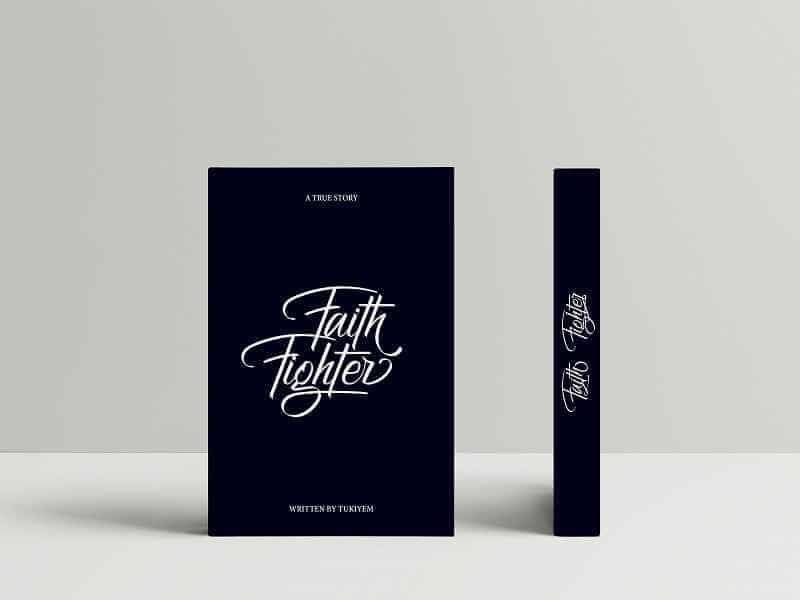
Let me introduce you to Atziluth! Atziluth Script Font Free is a lovely brush and script font. This typeface has a very clean brush script look to it. Anton Cahyono created and shared Atziluth. Atziluth is a lovely script typeface with a calligraphic feel to it. This is a display font that was produced using a digital brush.
It is an approachable and versatile font with a large number of alternates and ligatures that can be used for branding or logotypes. Ligatures, Contextual Alternates, Stylistic Alternates, and Swashes are among the 340+ Glyphs that are simple to use. The Font is compatible with Windows, Apple/Mac, Linux, Cricut, Silhouette, and other cutting machines. The Font can easily be converted to web font, which is a basic need for many designers. This typeface is available in two formats: TTF and OTF.
The Atziluth Script font is a brush calligraphy-inspired script that is ideal for a variety of creative design projects like books, magazines, packaging, branding, signage, and more. The typeface looks wonderful on book covers, and it has already been used on a number of them. You may also use it to create a mug for yourself or a loved one. It will look fantastic if you use this font on a white mug. This typeface can be used to create a logo if you are a beginner designer. It is an excellent choice for a logo.
| Style | Script |
| Designer | Anton Cahyono |